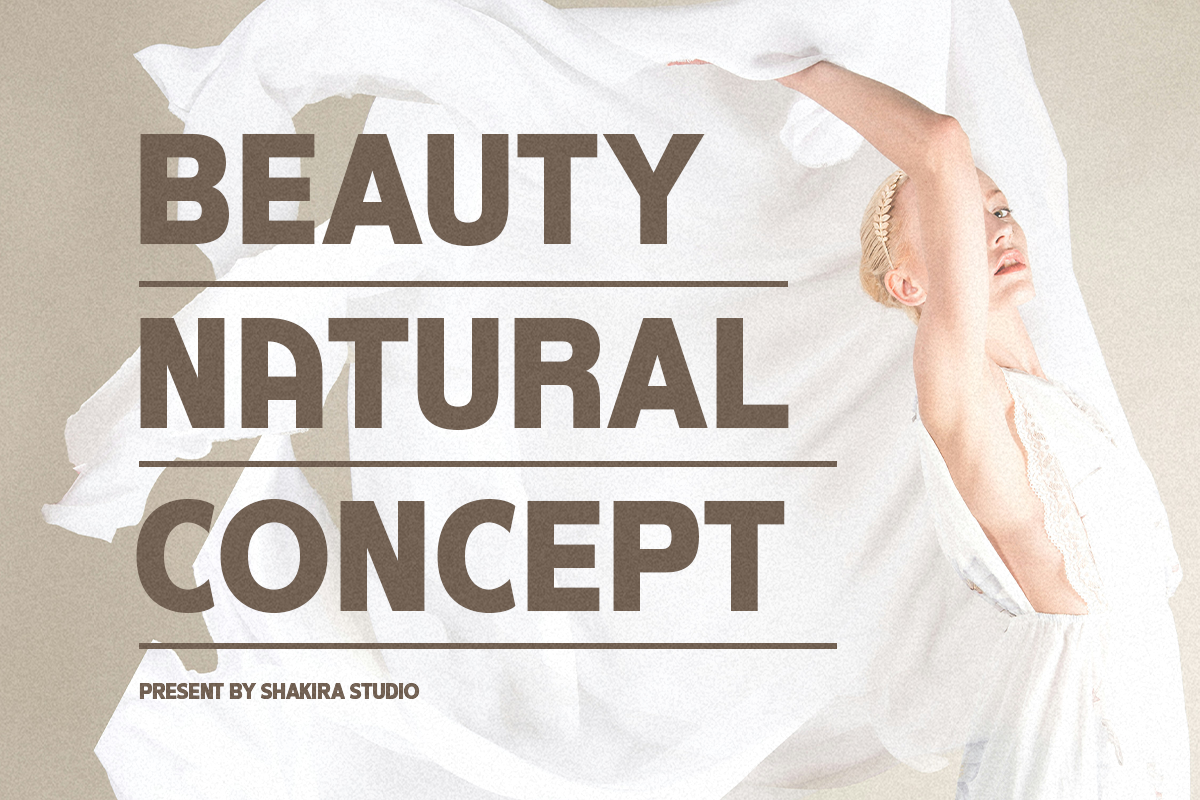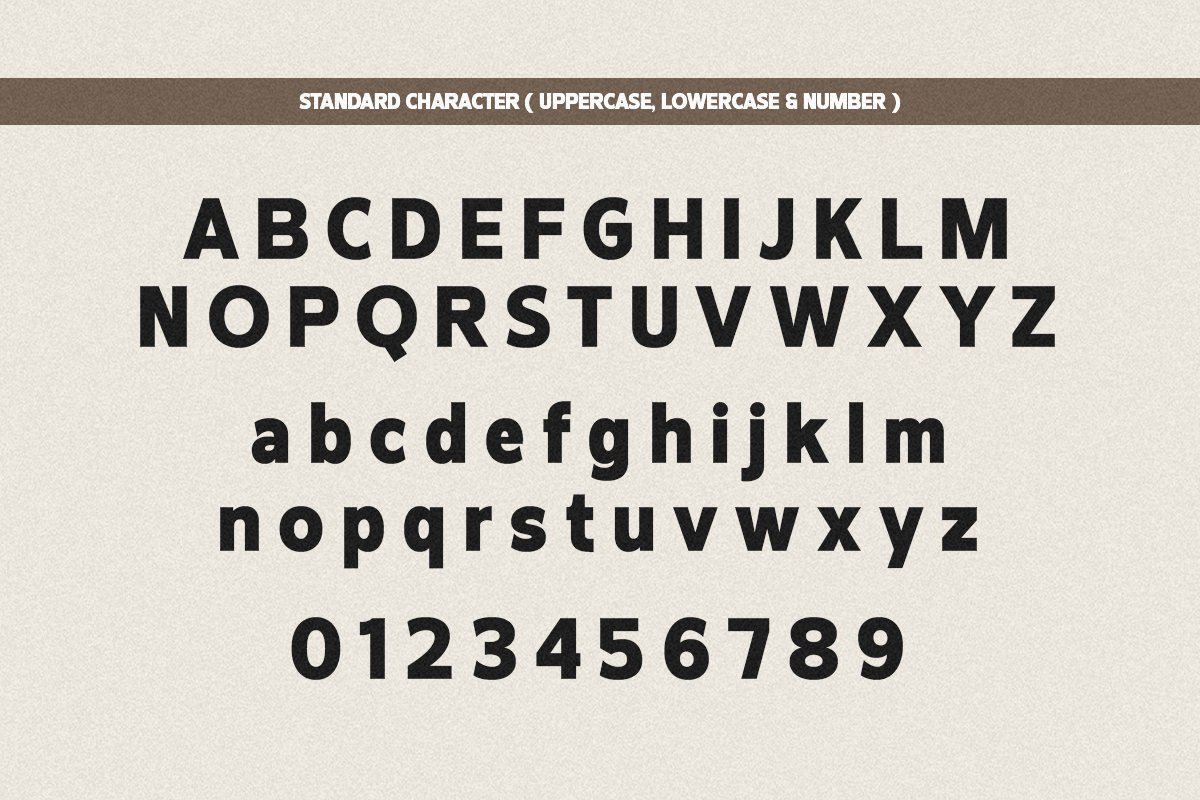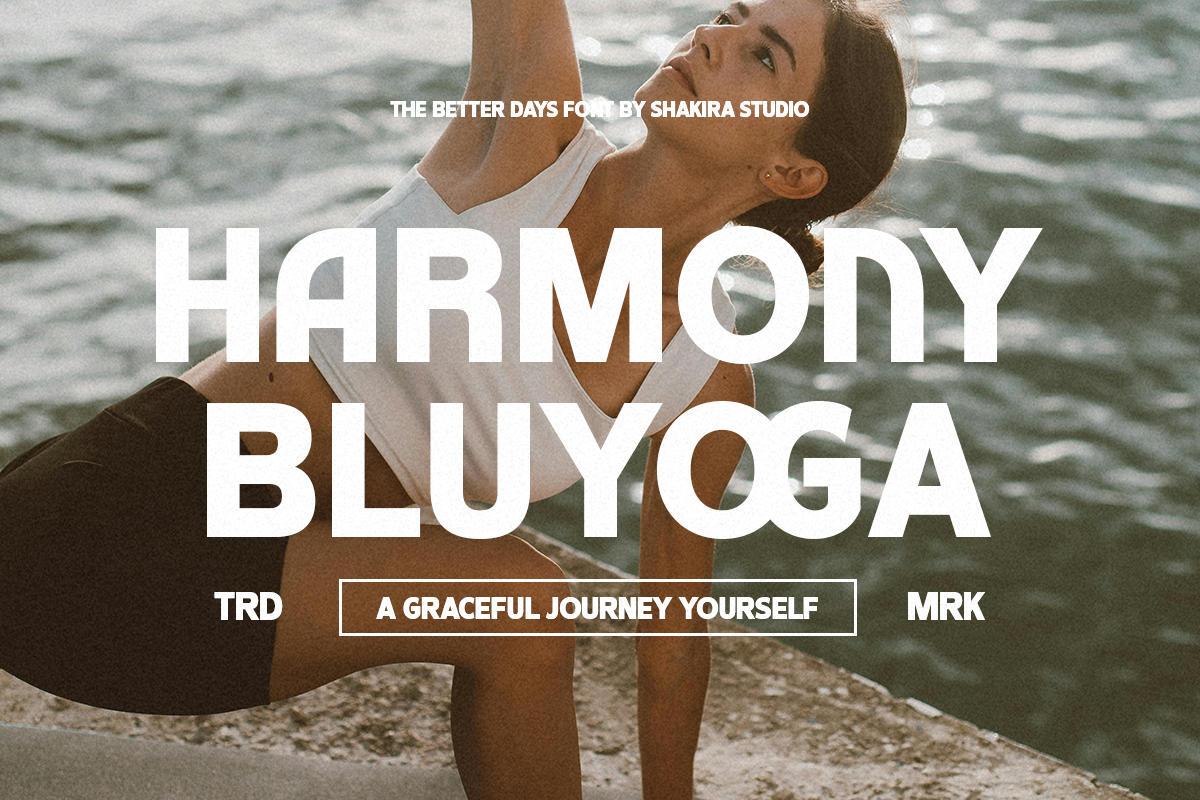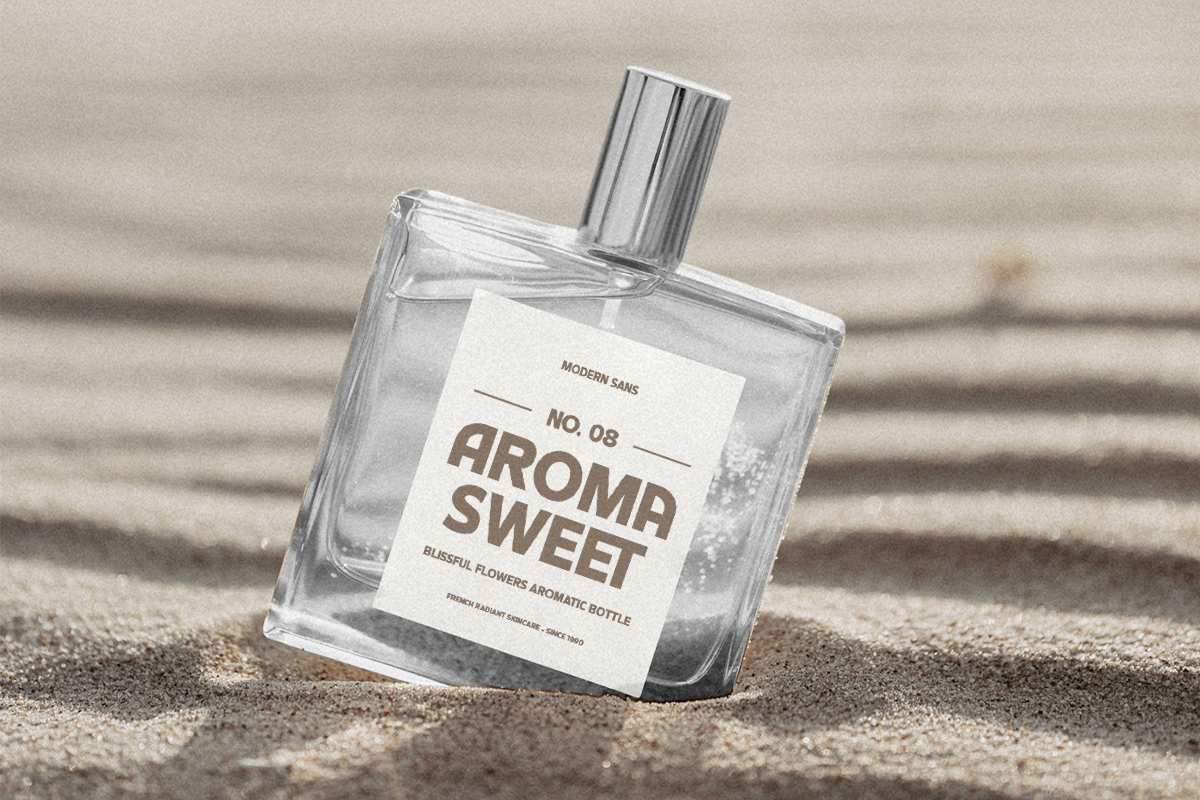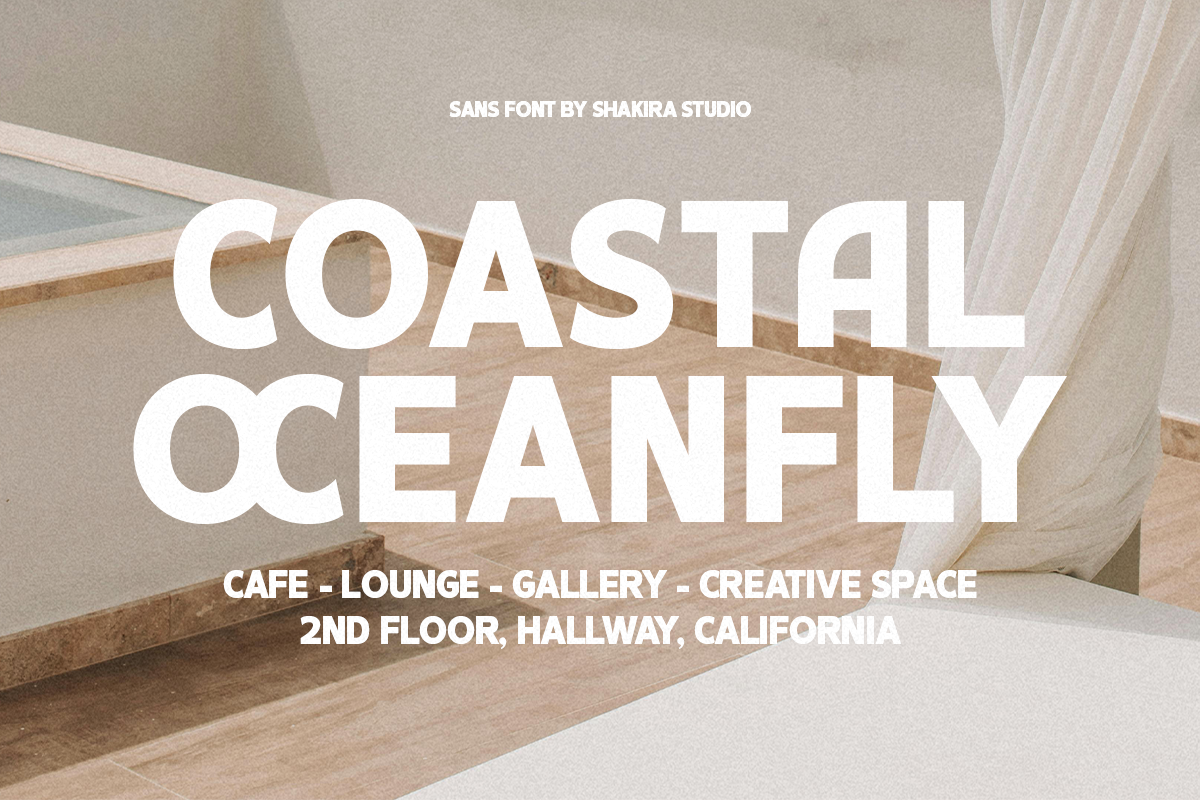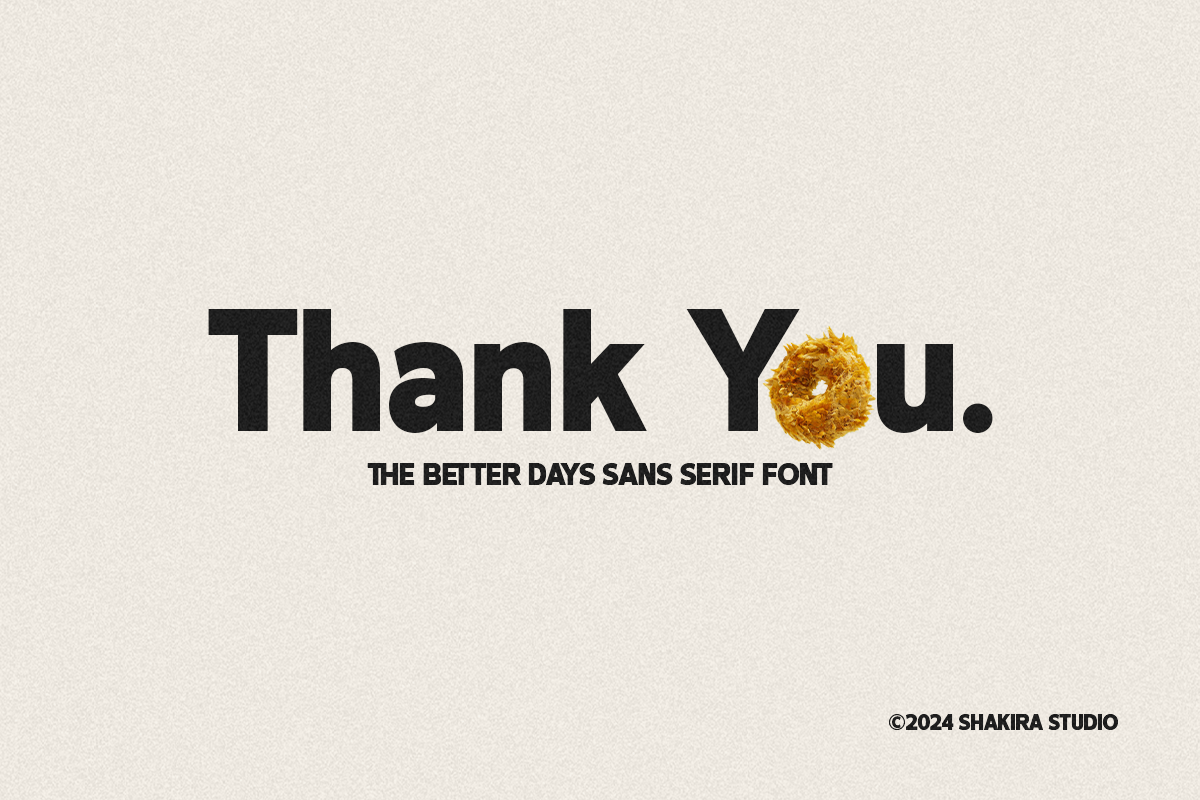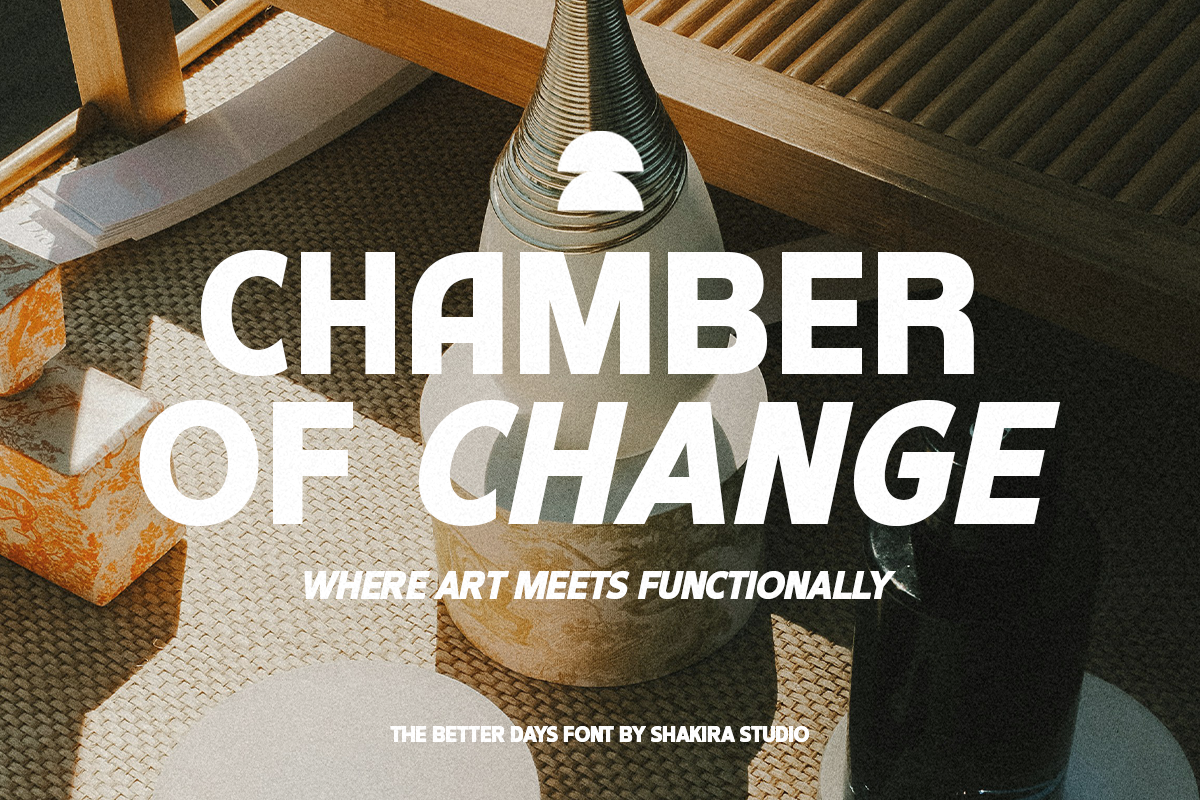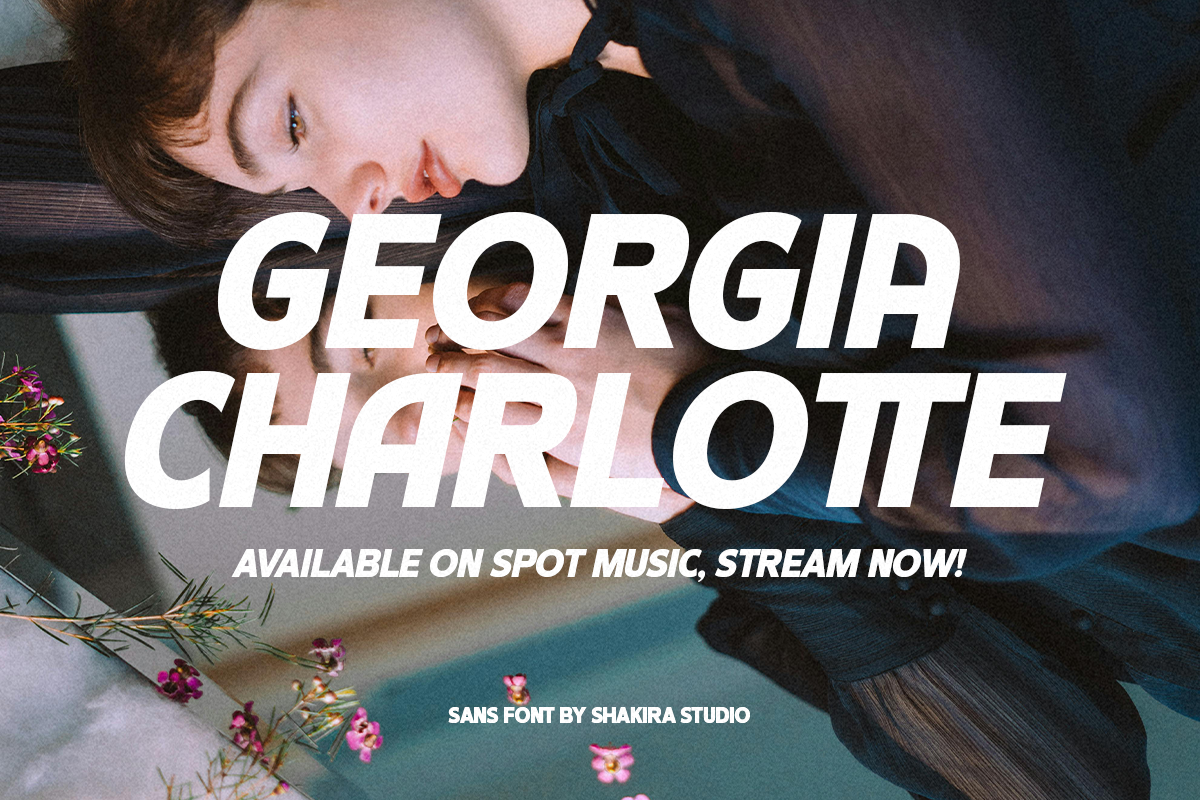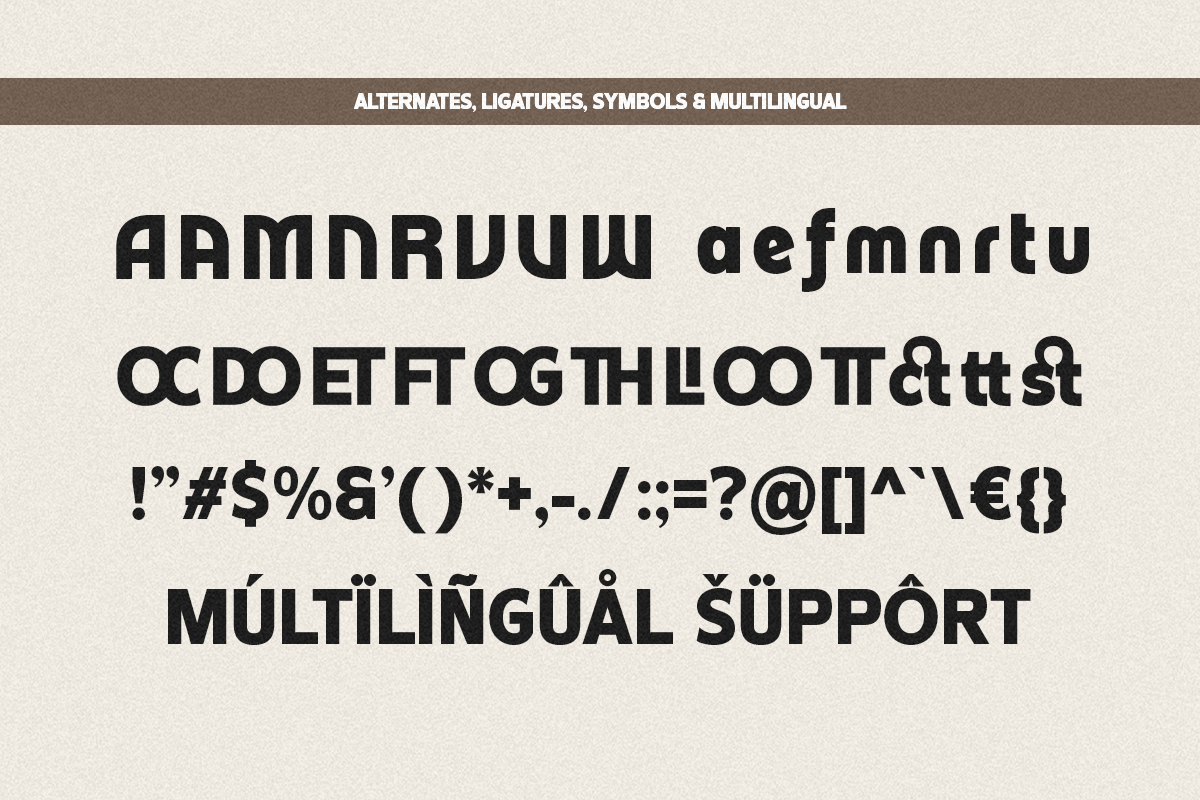
The Better Days - Modern Sans
"Introducing The Better Days, a modern Sans Serif font that embodies simplicity and clarity. Perfect for contemporary branding and digital projects, this versatile typeface is available in both regular and italic versions. Its clean lines and minimalist style make it ideal for headlines, logos, and body text. Enhance your design projects with the modern elegance of The Better Days."
- Regular & Italic
- Opentype features ( ligature, alternate )
Multilingual character supports : (Afrikaans, Albanian, Catalan, Croatian, Czech, Danish, Dutch, English, Estonian, Finnish, French, German, Hungarian, Icelandic, Italian, Lithuanian, Maltese, Norwegian, Polish, Portuguese, Slovenian, Spanish, Swedish, Turkish, Zulu)